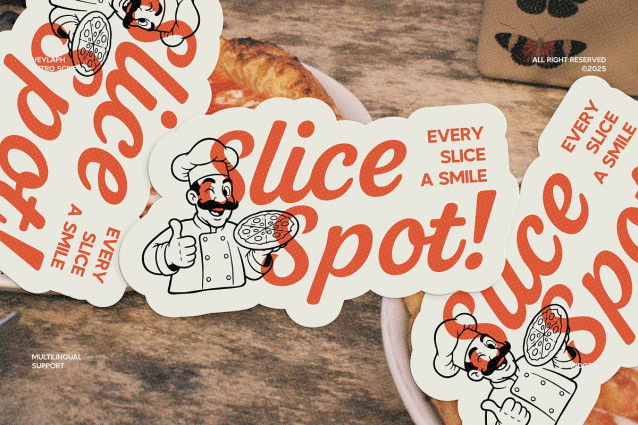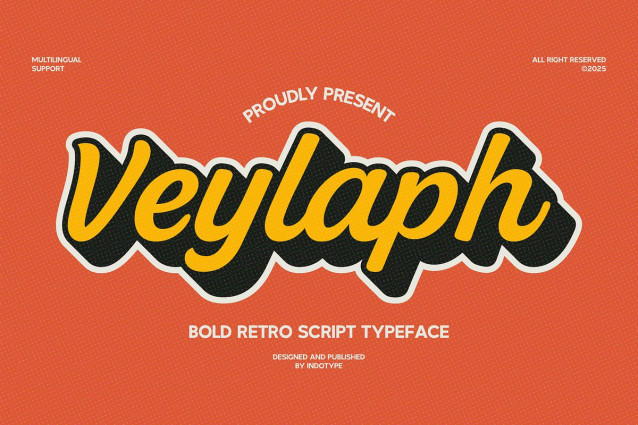
IT Veylaph Font
IT Veylaph Font is a bold retro script typeface that brings vintage energy and playful confidence into your design projects. With its smooth curves, dynamic strokes, and bold letterforms, Veylaph captures the charm of classic sign painting while adding a fresh, modern edge. This font is crafted to evoke nostalgia while staying versatile for contemporary design. Its strong personality makes it an excellent choice for logos, branding, packaging, posters, apparel, signage, advertising, and social media graphics. Whether you’re creating a retro-inspired campaign or looking for a bold, stylish script with character, Veylaph delivers. With multilingual support and a carefully designed character set, Veylaph offers flexibility for designers working across global markets. Designed and published by Indotype in 2025, Veylaph is not just a typeface—it’s a retro revival with a bold modern twist.